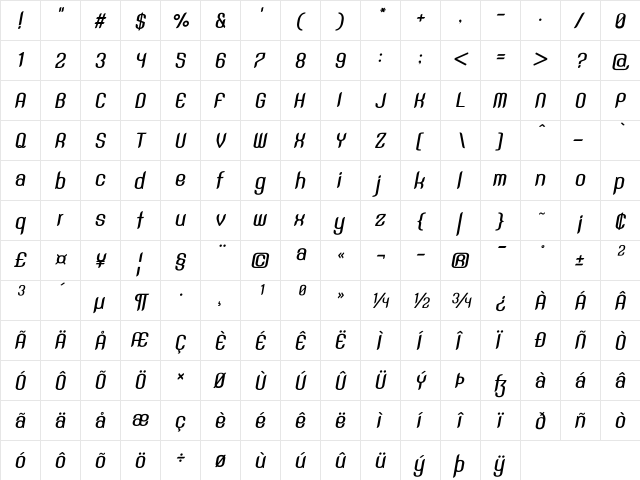
SNT Anouvong Bold Italic
Foundry Sengkeo Vangxiengvue
DesignerSengkeo Vangxiengvue
Design Context for SNT Anouvong Typeface
SNT Anouvong offers clean, dependable letterforms without strong stylistic allegiance, making it a practical choice for designers who need flexibility. Its italic angle brings a sense of urgency and motion to the letterforms. The heavy weight commands attention and anchors typographic hierarchies.
Pro Tip: Use SNT Anouvong for emphasis, pull quotes, and subheadings where its slanted energy can add rhythm to the layout.